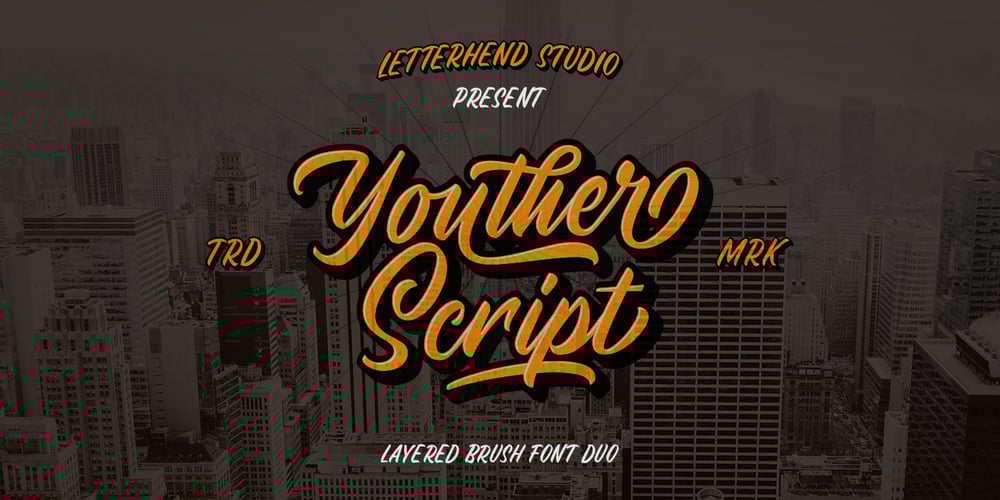
Youther Font Family was designed by Hendry Juanda and published by Letterhend. Youther contains 6 styles and family package options. Youther is a font duo with layered style. Yes, you can make a fancy typography only with these fonts, and without any plugin or action. This font family contain the fabulous script and also comes with caps font. Youther is perfect to be used as logotype, badges and labels! This has many OpenType features like ligature, stylistic alternate, contextual alternate, swash, and more, as well as and support for multiple languages.